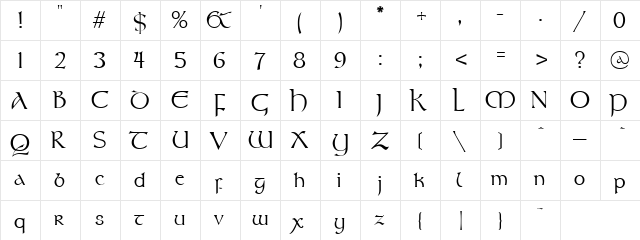
Roman Catholic Regular
Design Context for Roman Catholic Typeface
Roman Catholic is a composed and adaptable typeface that performs quietly and consistently across a wide range of design contexts.